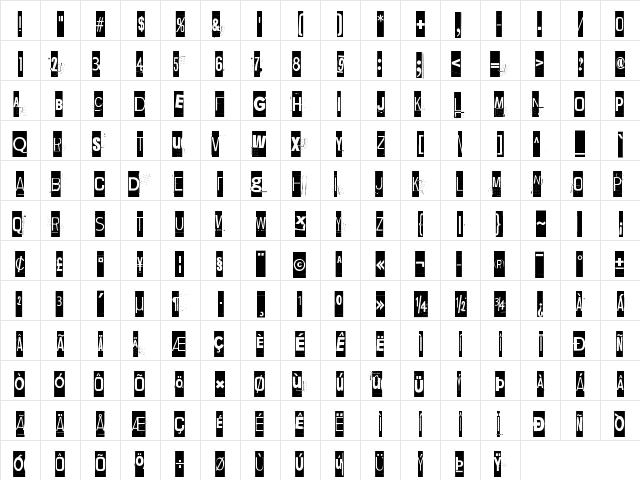
Lievidence SQR Regular
| Designer | junkohanhero |
Design Context for Lievidence SQR Typeface
Lievidence SQR takes a measured approach to typography — its balanced proportions and neutral character make it a reliable workhorse for both digital and print work.